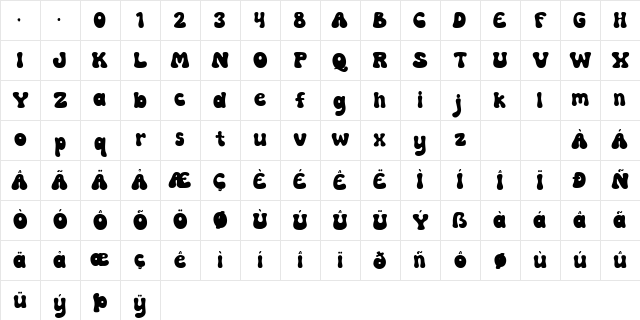
Balance Groovy Groovy Regular Free Font
Balance Groovy Groovy Regular
Designer: Rian Dryana
Design Context for Balance Groovy Groovy
Balance Groovy Groovy is a composed and adaptable typeface that performs quietly and consistently across a wide range of design contexts.